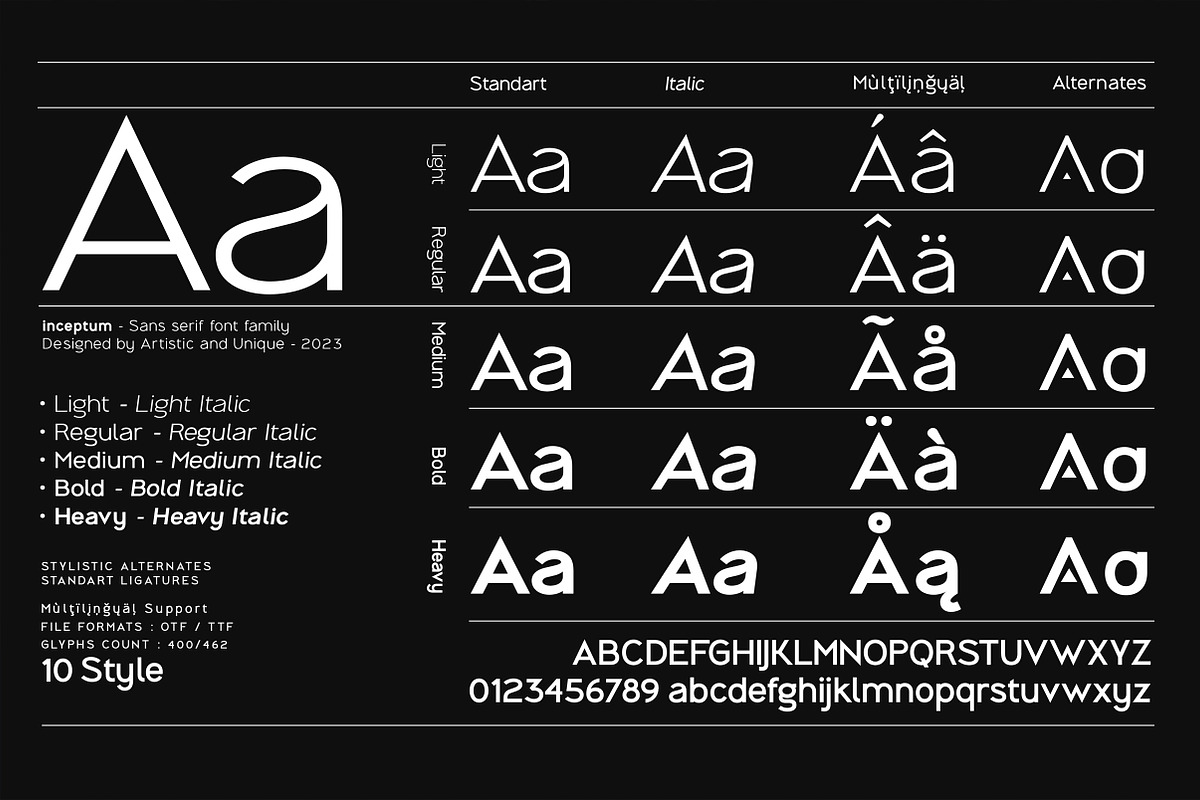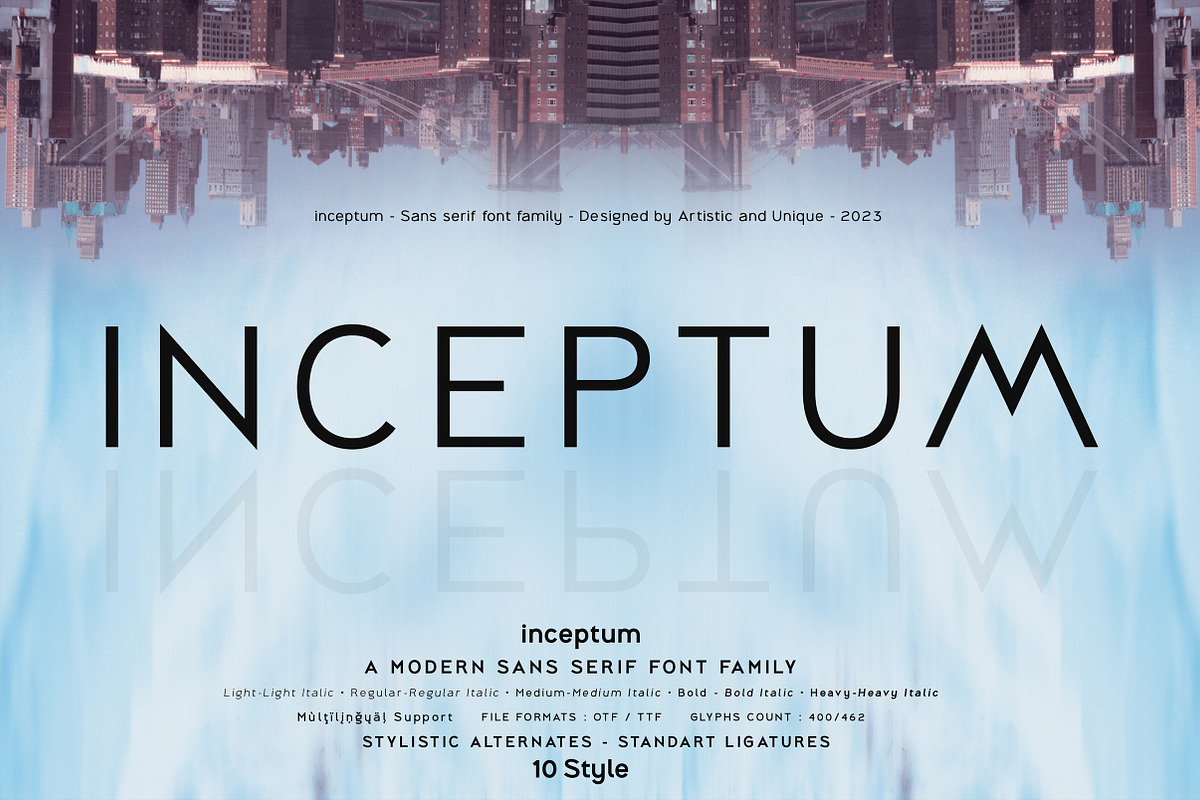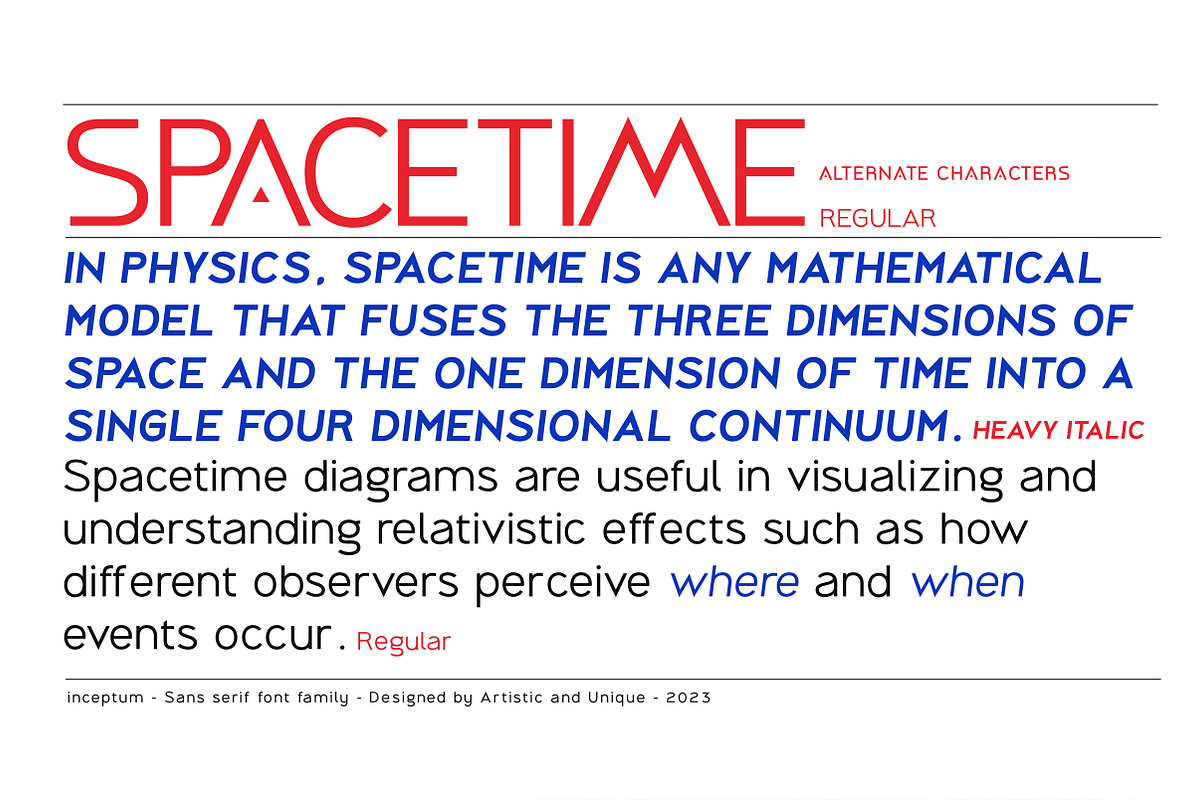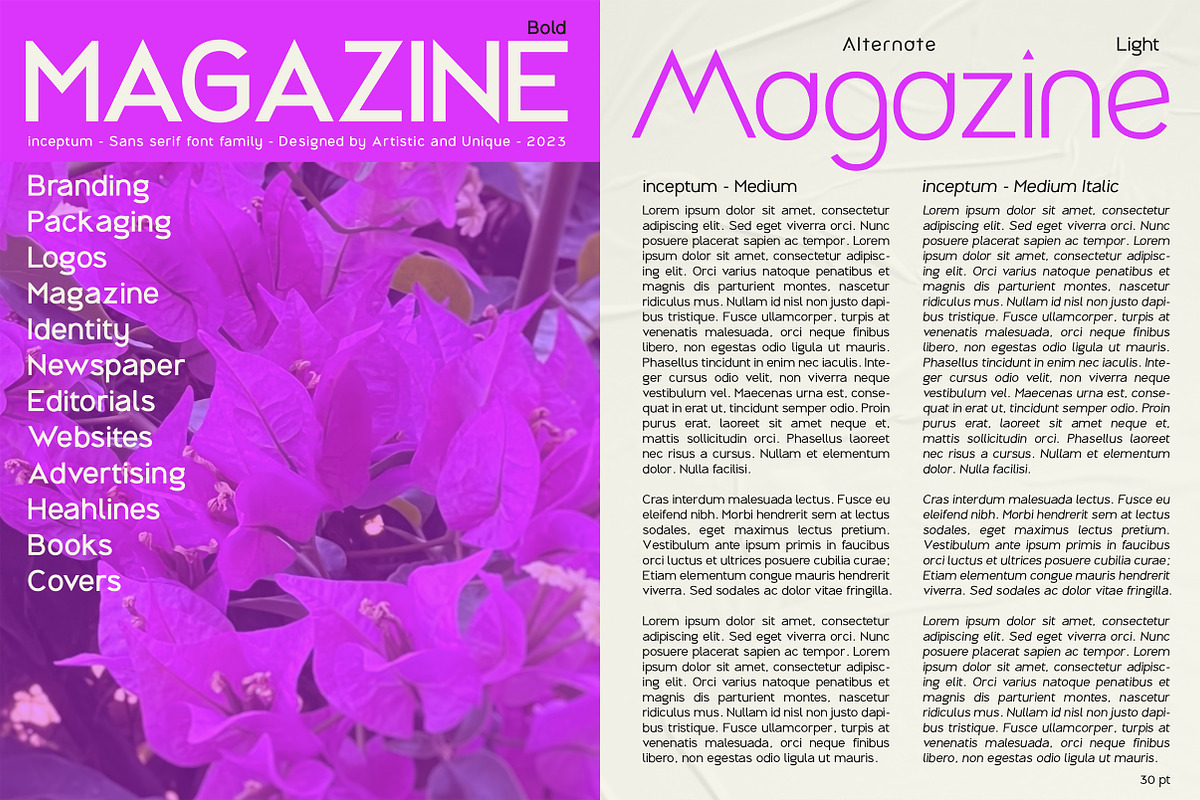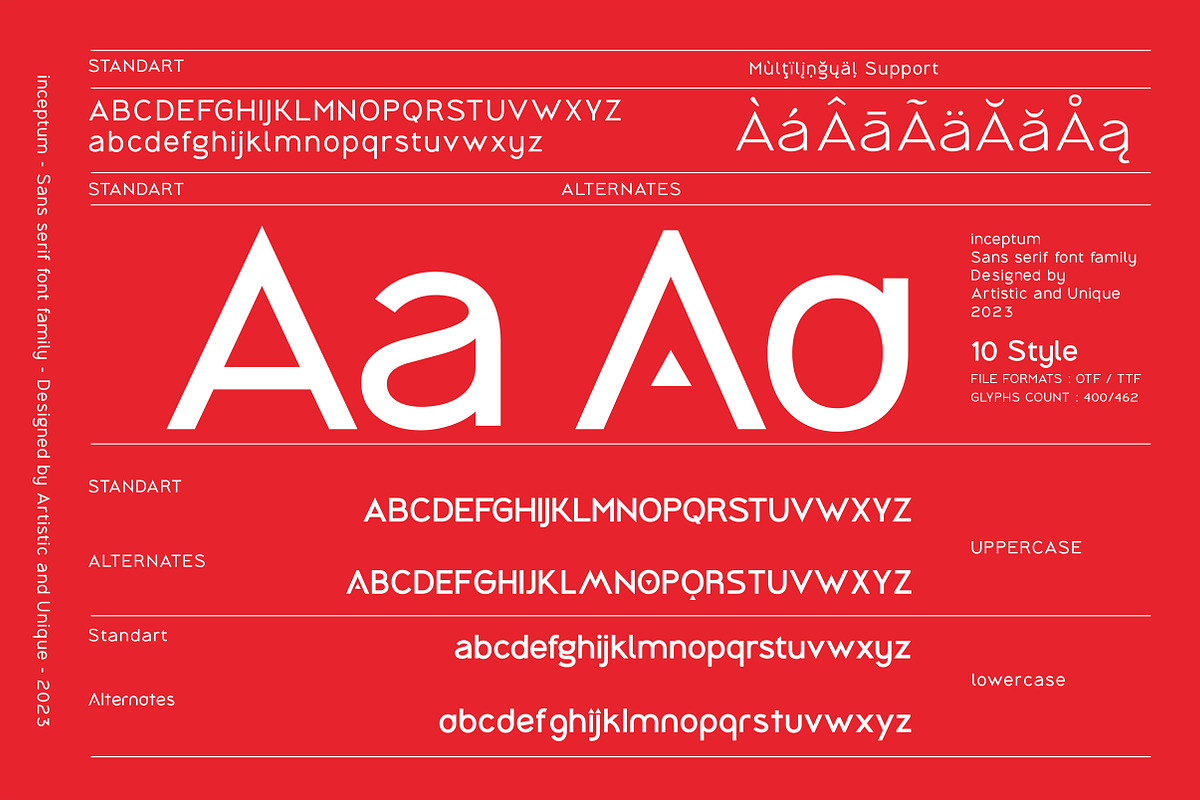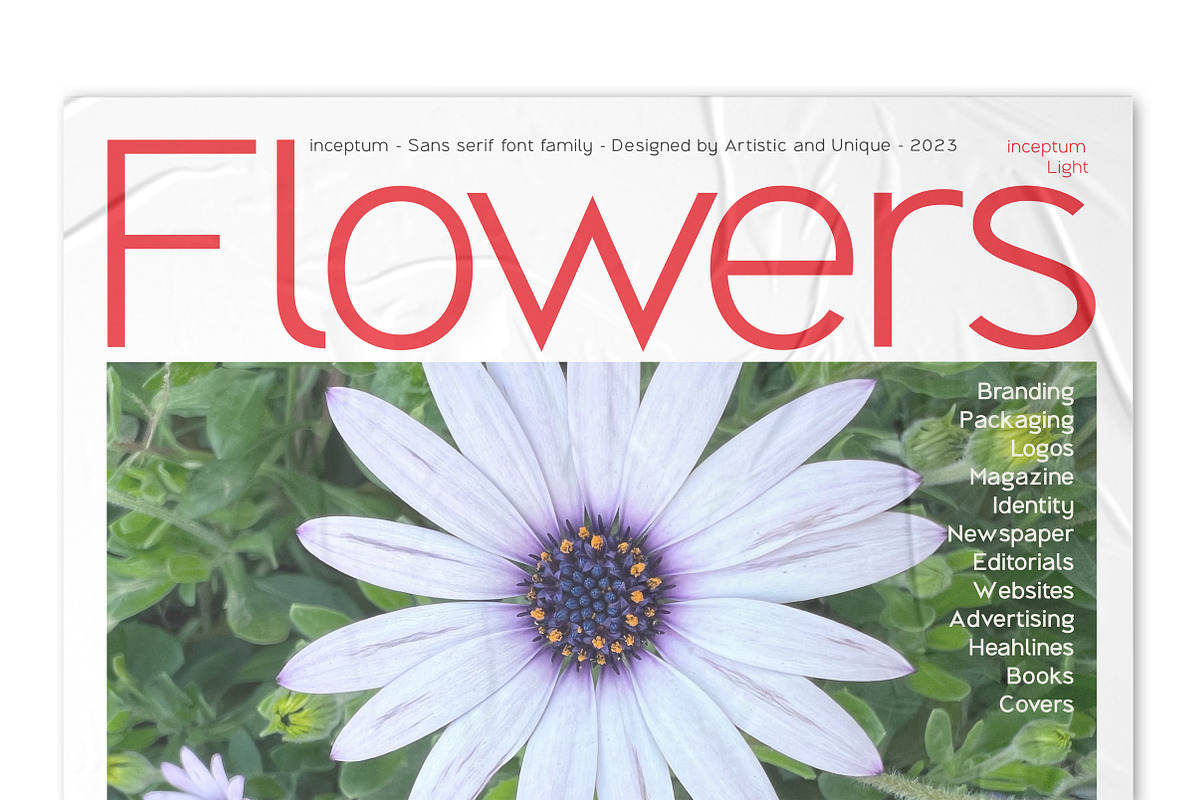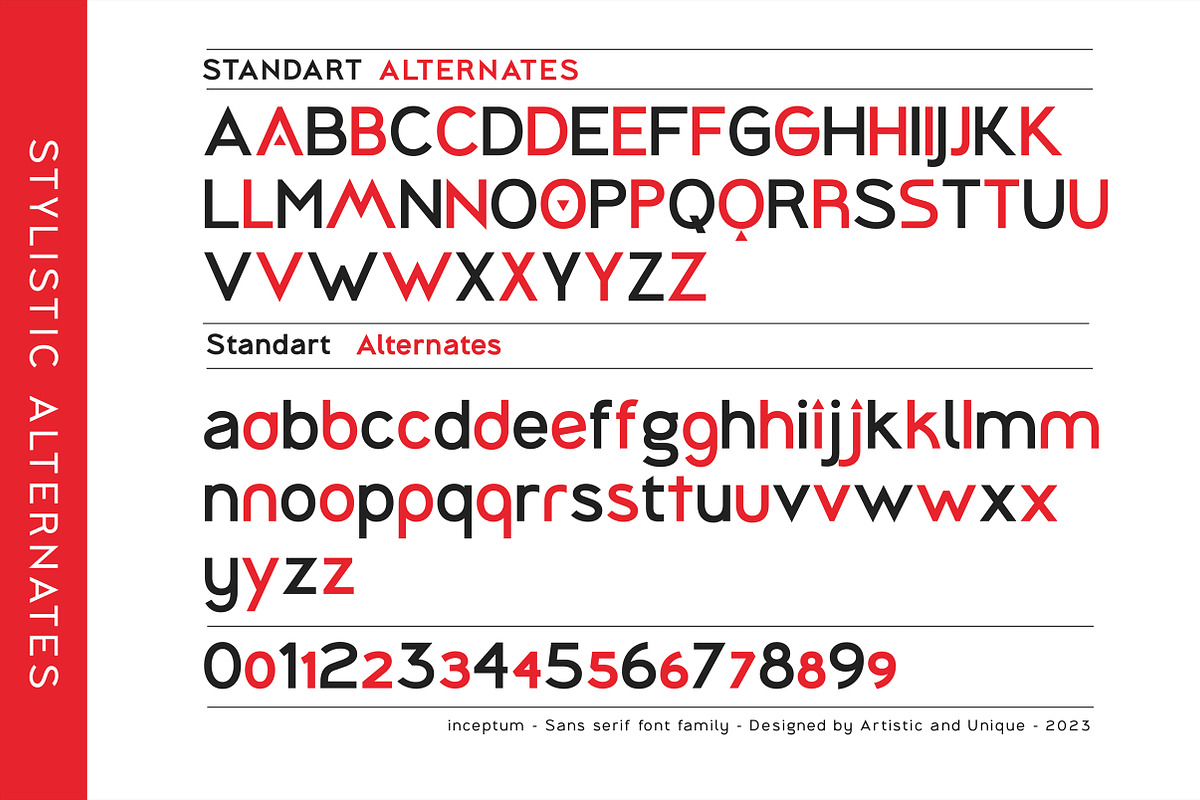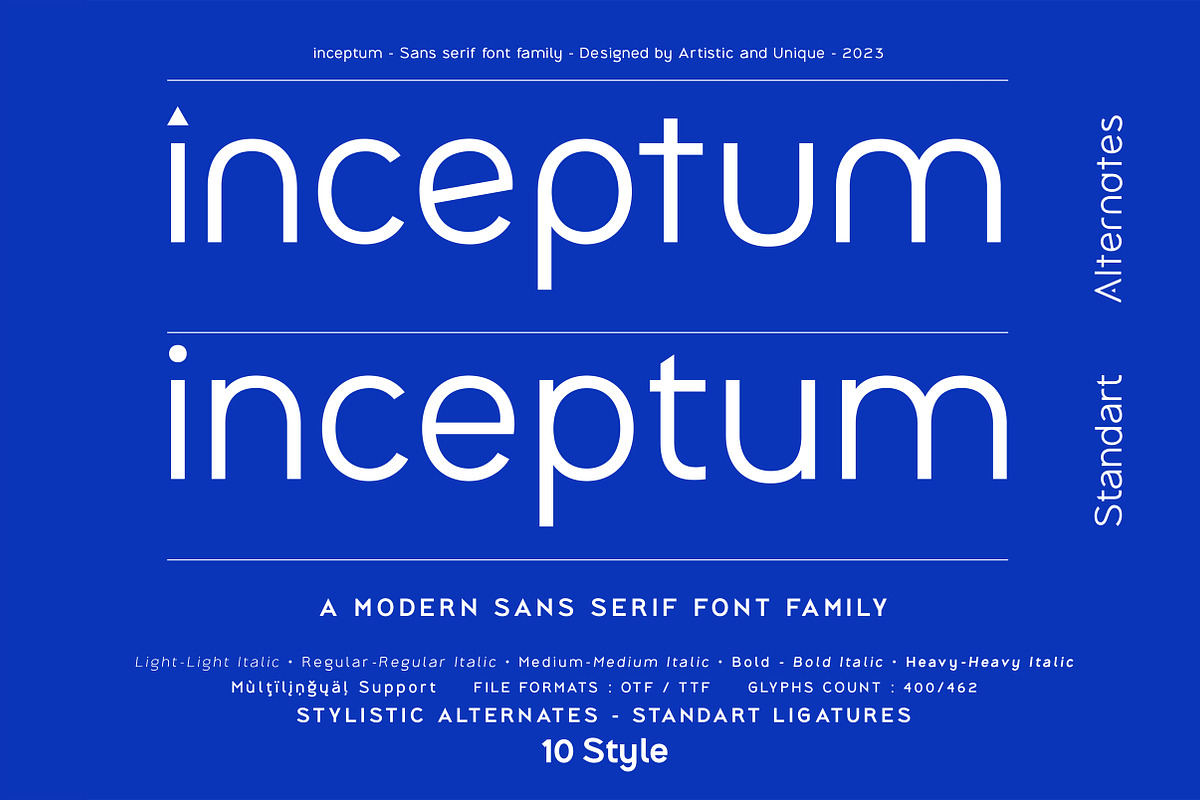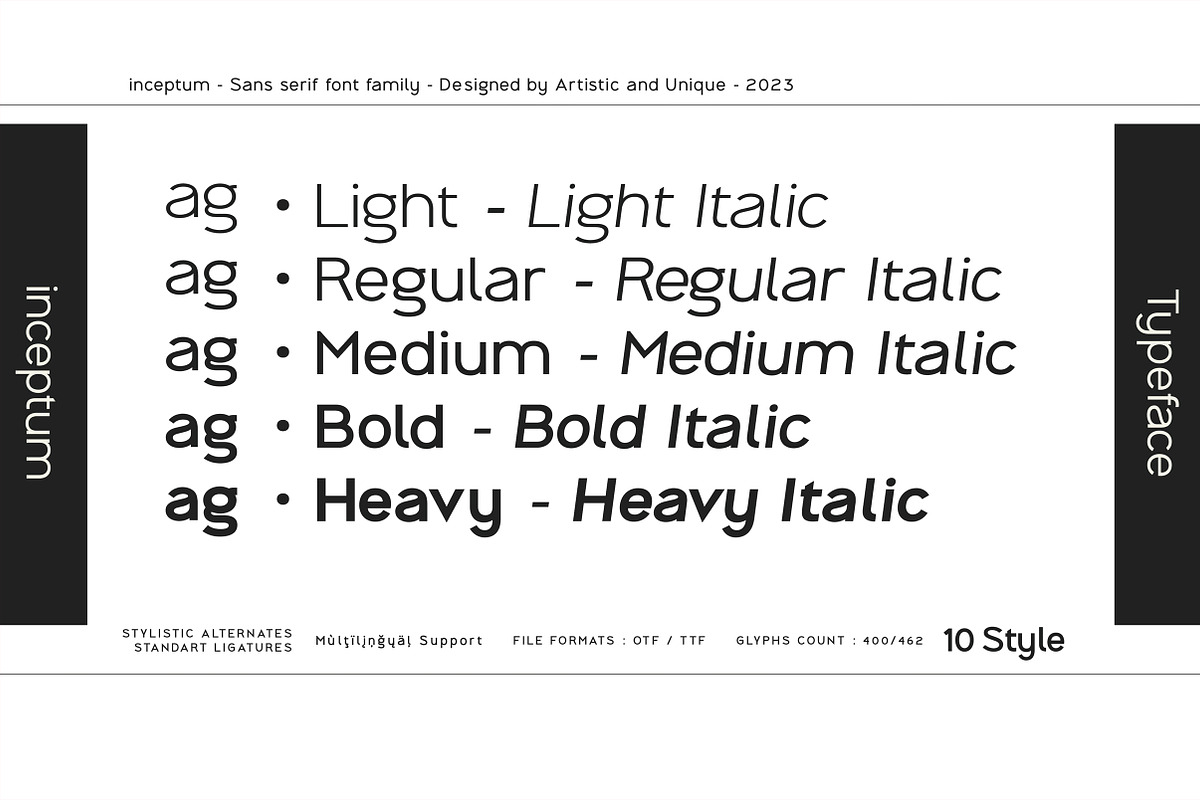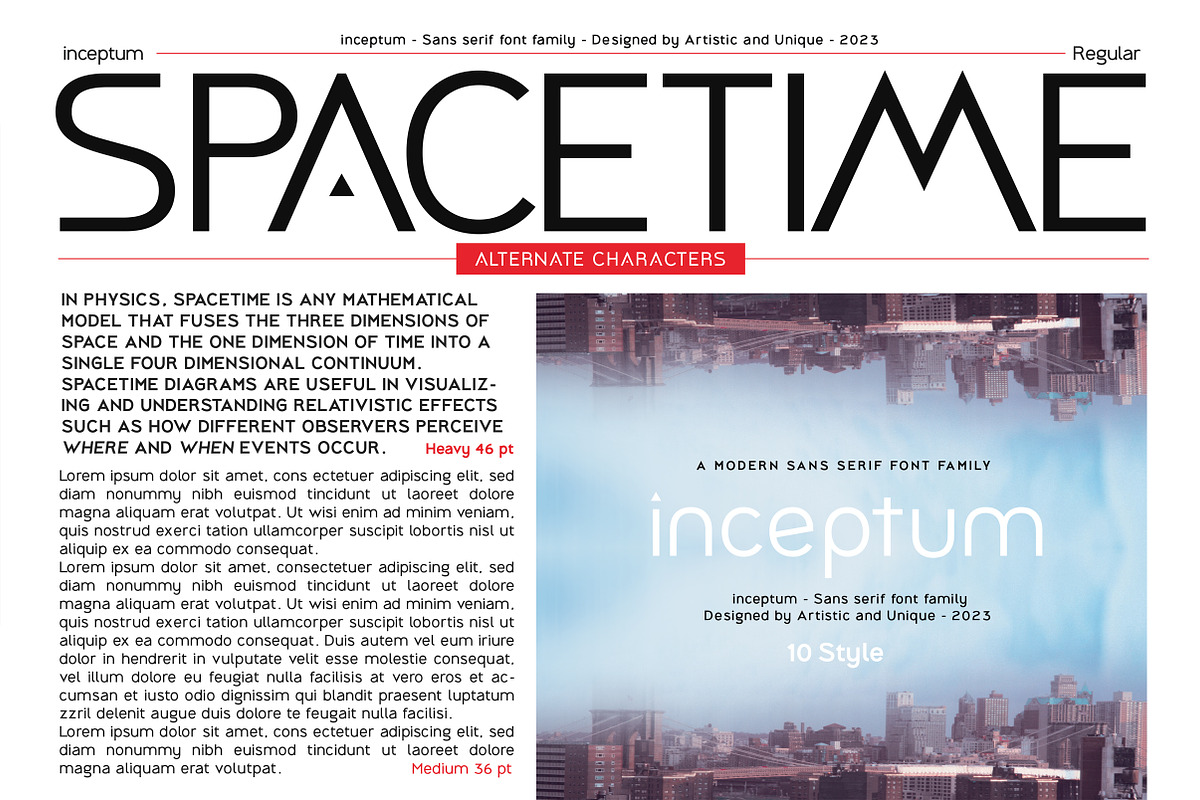
inceptum - Sans serif font family
inceptum - Sans serif font family - Multilingual - 10 Styles
inceptum sans serif font family is a geometric sans serif font family. It help you develop your creative projects with its 10 styles and futuristic alternative characters and multilingual supports. With these features, it will be effective in creating alternatives in your projects. It is also assertive about being a highly readable font with different wights.
This font comes with uppercase, lowercase, punctuation, symbols and numbers, ligatures, alternate characters, and multilingual supports.
Ideal for books and magazines, editorials, headlines, websites, logos, branding, advertising and more. This font family can meet your needs in all creative projects, modern and classic.